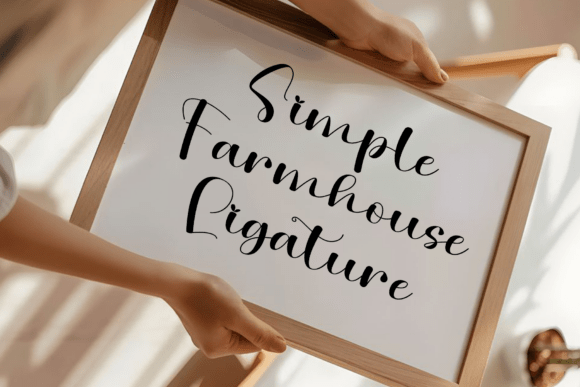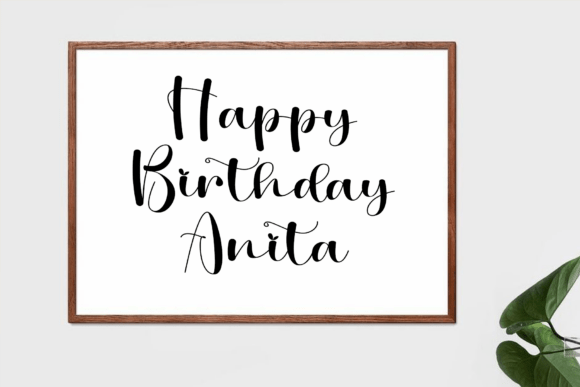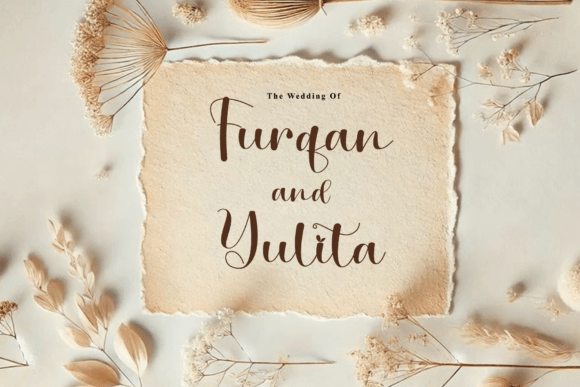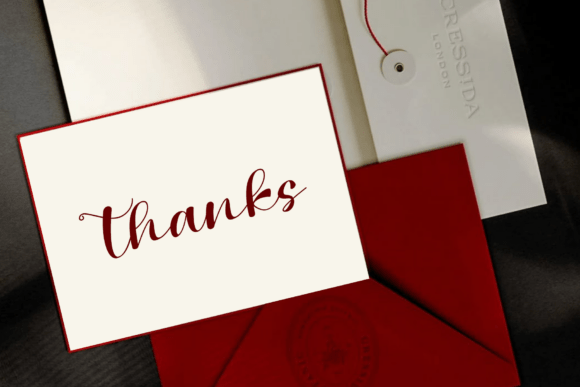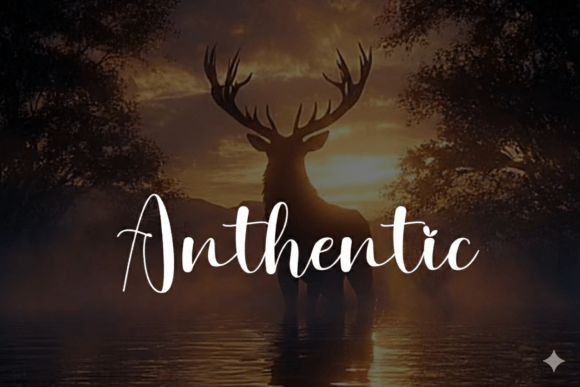
Discover the Charm of Authentic Font: Elevate Your Designs with a Timeless Handwritten Style
In the world of typography, few fonts manage to capture the essence of elegance and charm as effectively as Authentic Font. This lovely and timeless handwritten font has been making waves among designers and crafters alike, and for good reason. Its unique blend of classic appeal and modern flair makes it the perfect choice for creating eye-catching logos, branding, and quotes that stand out from the crowd.
The Beauty of Authentic Font
What sets Authentic Font apart from other fonts is its distinctive, handcrafted feel. Every letter has been carefully designed to possess a unique and beautiful touch, imbuing your designs with a sense of personality and warmth. The font’s flowing lines and subtle imperfections evoke a sense of nostalgia, reminiscent of handwritten scripts from a bygone era.
Authentic Font’s versatility is another one of its key strengths. Whether you’re looking to create a stunning logo, craft a compelling brand identity, or add a touch of elegance to your quotes and phrases, this font is up to the task. Its timeless quality ensures that your designs will remain fresh and relevant for years to come, without succumbing to the fleeting trends of the design world.
Why Designers and Crafters Love Authentic Font
So, what makes Authentic Font a favorite among designers and crafters? For starters, its handcrafted nature gives it a unique character that is hard to replicate with more generic fonts. This font is perfect for those who value individuality and want their designs to reflect their personal style.
Another reason Authentic Font is so popular is its ease of use. The font is highly legible, making it suitable for a wide range of applications, from large-scale signage to smaller, more intricate designs. Its flexibility also makes it an excellent choice for digital and print projects alike.
Using Authentic Font in Your Designs
Integrating Authentic Font into your designs is a straightforward process. Here are a few tips to get you started:
- Pair it with complementary fonts: Authentic Font pairs beautifully with a variety of other fonts, allowing you to create stunning contrast and visual interest in your designs.
- Experiment with colors: The font’s classic appeal lends itself well to a wide range of color schemes, from bold and bright to soft and pastel.
- Don’t be afraid to get creative: Authentic Font’s unique character encourages experimentation and creativity. Try it out in different contexts and see what works best for your project.
Authentic Font is more than just a font – it’s a design statement. Its timeless elegance, unique character, and versatility make it an invaluable addition to any designer’s toolkit. Whether you’re crafting a brand identity, creating eye-catching logos, or simply looking for a beautiful way to express yourself, Authentic Font is sure to exceed your expectations.